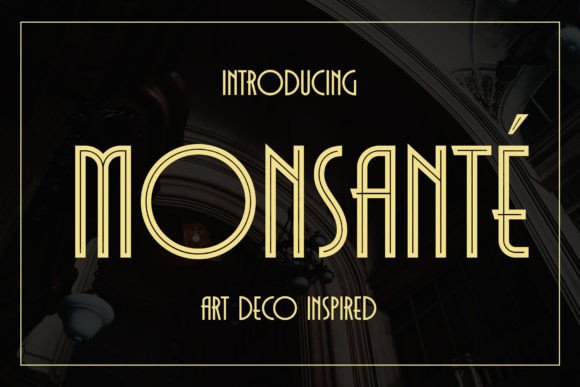
Monsante Font
Introducing Monsante, a modern Art Deco-style font. Inspired by typography from the 1920s, it exudes elegance, luxury, and a touch of modernism. Carefully crafted with distinctive geometric elements and crisp letterforms, this font creates a sense of luxury and sophistication.
Monsante is available in two styles: Regular and Inline. These styles are ideal for displays, headlines, film titles, awards, certificates, books, weddings, cards, signage, menus, and more. It also includes special characters that you can mix and match to add characteristics and beauty to your designs.